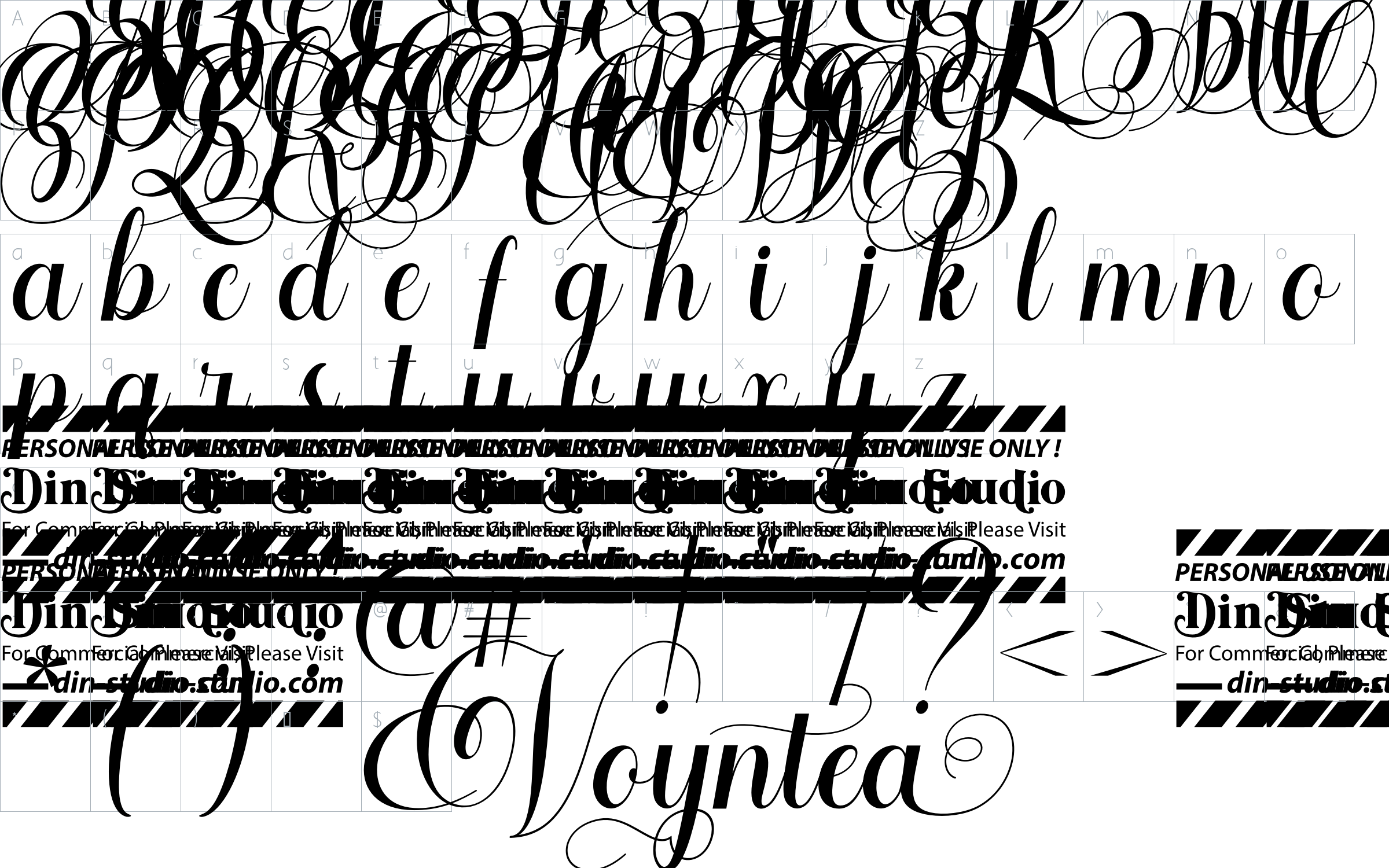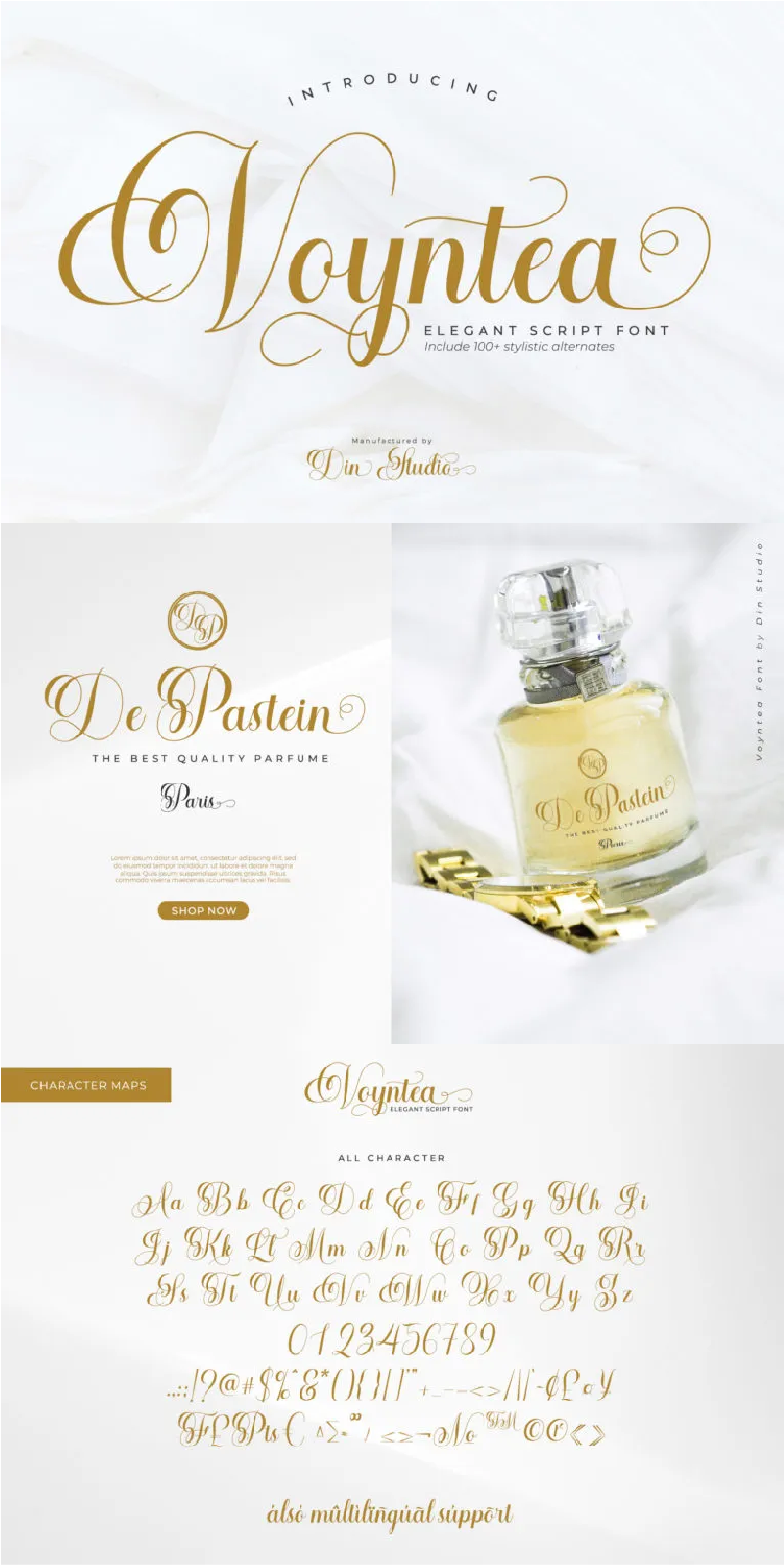
Voyntea Font
About Voyntea
Hello, Guys! Let’s get to know Voyntea, an elegant calligraphy font in natural and handwritten style giving you a beautiful modern typeface made for any professional project brandings. It is best applied for logos, brandings, weddings, and quotes. See the previews above to get some inspiration on how you can use them. Enjoy the font!